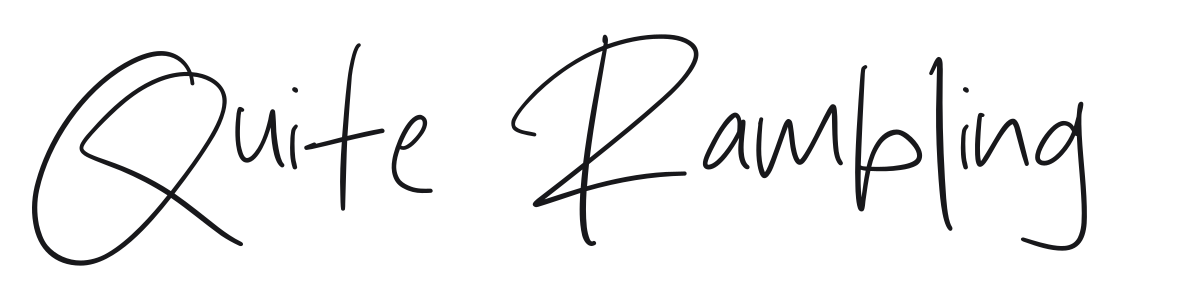
Quite Rambling
Quite Rambling is a casual handwritten script that looks like notes jotted with a thin ballpoint pen. The irregular baseline, varying letter heights, and flowing connections give it a genuinely personal, unstaged quality that distinguishes it from overly polished scripts. It works well for branding projects that want warmth and informality.